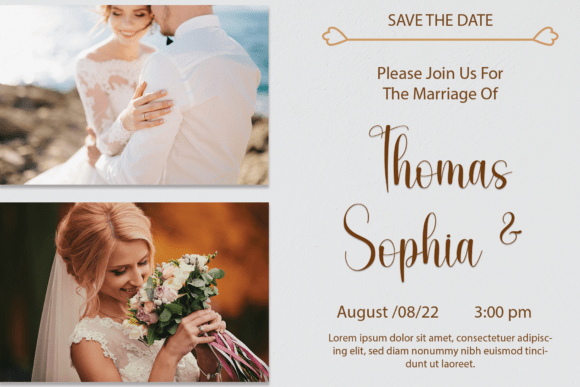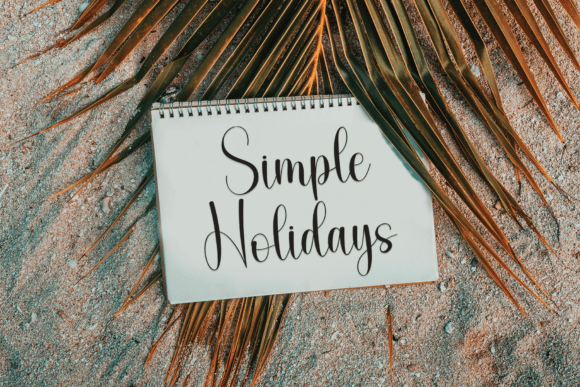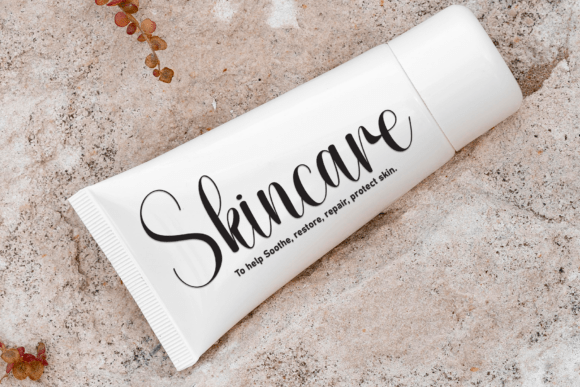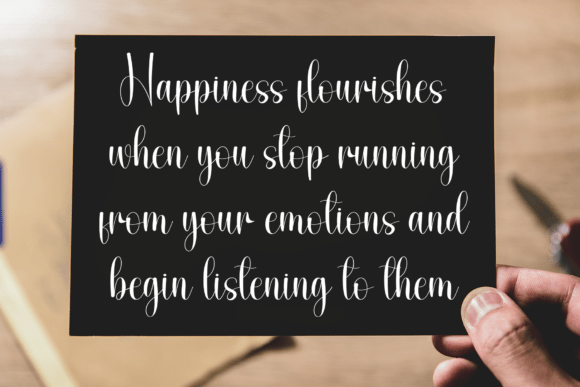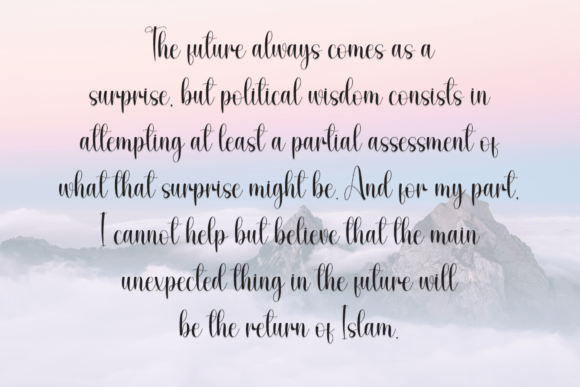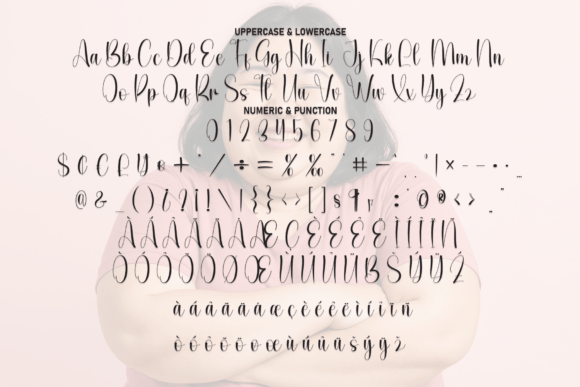
Introducing Chubby Font: The Ultimate Display Font for Creative Expression
Are you tired of using the same old fonts in your designs? Look no further! Meet Chubby Font, a charming and whimsical handwritten display font that’s sure to add a touch of sweetness and playfulness to your creations. With its friendly flair, this font is perfect for designers, crafters, and artists looking to add a dash of fun and personality to their work.
The Perfect Blend of Whimsy and Sophistication
Chubby Font is a unique and captivating display font that’s built to make your designs stand out. Its handwritten style exudes warmth and approachability, making it perfect for a wide range of creative projects. Whether you’re designing whimsical wedding invitations, heartfelt cards, or simply looking to add some personality to your digital designs, Chubby Font is the perfect choice.
Key Features of Chubby Font
- Whimsical Handwritten Style: Chubby Font boasts a charming, handwritten style that’s sure to capture the hearts of your audience.
- Playful and Fun: This font adds an irresistible touch of fun to your designs, transforming ordinary creations into extraordinary ones.
- Amiable yet Robust: Chubby Font strikes the perfect balance between being friendly and strong, making it perfect for a wide range of design applications.
- Unique Style: With Chubby Font, you can add a unique touch to your designs, making them distinct and memorable.
Use Cases for Chubby Font
Chubby Font is a versatile display font that can be used in a variety of creative projects, including:
- Wedding Invitations: Add a touch of whimsy and romance to your wedding invitations with Chubby Font.
- Cards and Stationery: Create heartfelt cards and stationery with a personal touch using Chubby Font.
- Digital Designs: Use Chubby Font to add personality and flair to your digital designs, such as social media graphics, blog posts, and more.
- Crafting and DIY Projects: Chubby Font is perfect for crafters and DIY enthusiasts looking to add a personal touch to their projects.
Why Choose Chubby Font?
With so many fonts available, why choose Chubby Font? Here are just a few reasons why this font stands out:
- Unique Style: Chubby Font offers a unique and captivating style that’s sure to make your designs stand out.
- Easy to Read: Despite its playful style, Chubby Font is easy to read, making it perfect for body text and headings.
- Highly Versatile: Chubby Font can be used in a wide range of design applications, from digital designs to print materials.
Tips for Using Chubby Font
To get the most out of Chubby Font, here are a few tips to keep in mind:
- Use it Sparingly: Chubby Font is a display font, so use it sparingly to add emphasis and personality to your designs.
- Experiment with Colors: Chubby Font looks great in a variety of colors, so don’t be afraid to experiment and find the perfect hue for your design.
- Pair it with Other Fonts: Chubby Font pairs well with a variety of other fonts, so try pairing it with a sans-serif font for a fun and modern look.